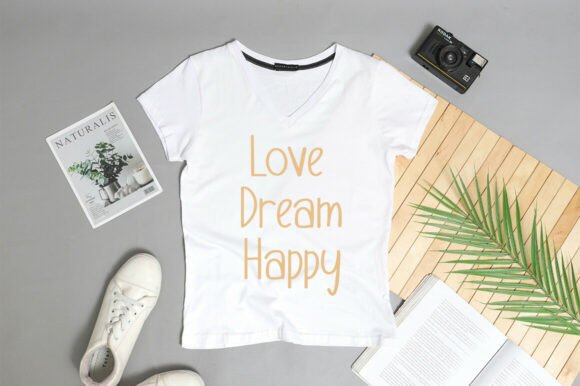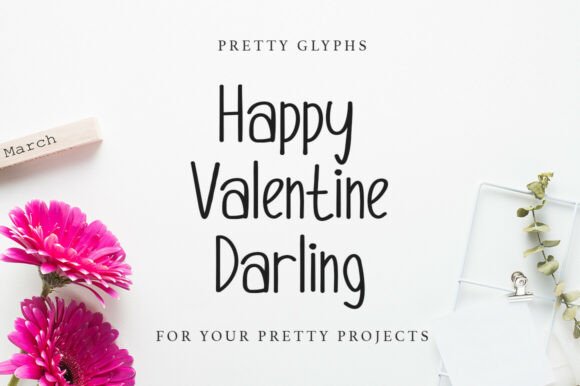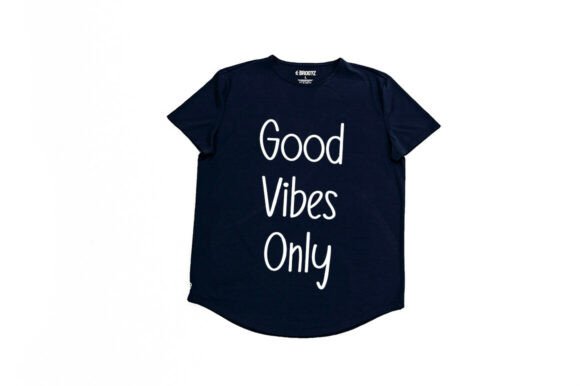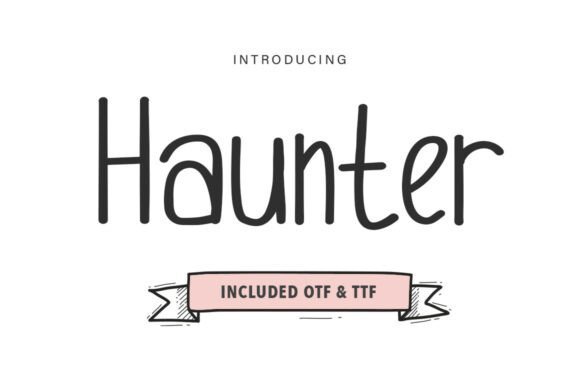
Introduction to Haunter Font
Add a whisper of character to your projects with Haunter, a slender handwritten typeface that captures a โ€œquirky-and-nimbleโ€ soul.
This font features tall, thin letterforms with subtle hand-drawn irregularities and a rhythmic, elongated structure With its airy proportions and minimalist handcrafted charm, Haunter is the premier choice for independent boutique stationery, modern lifestyle blog titles, artisanal product labels, and high-impact โ€œsleek-yet-personalโ€ social media headers.
Why Choose Haunter Font?